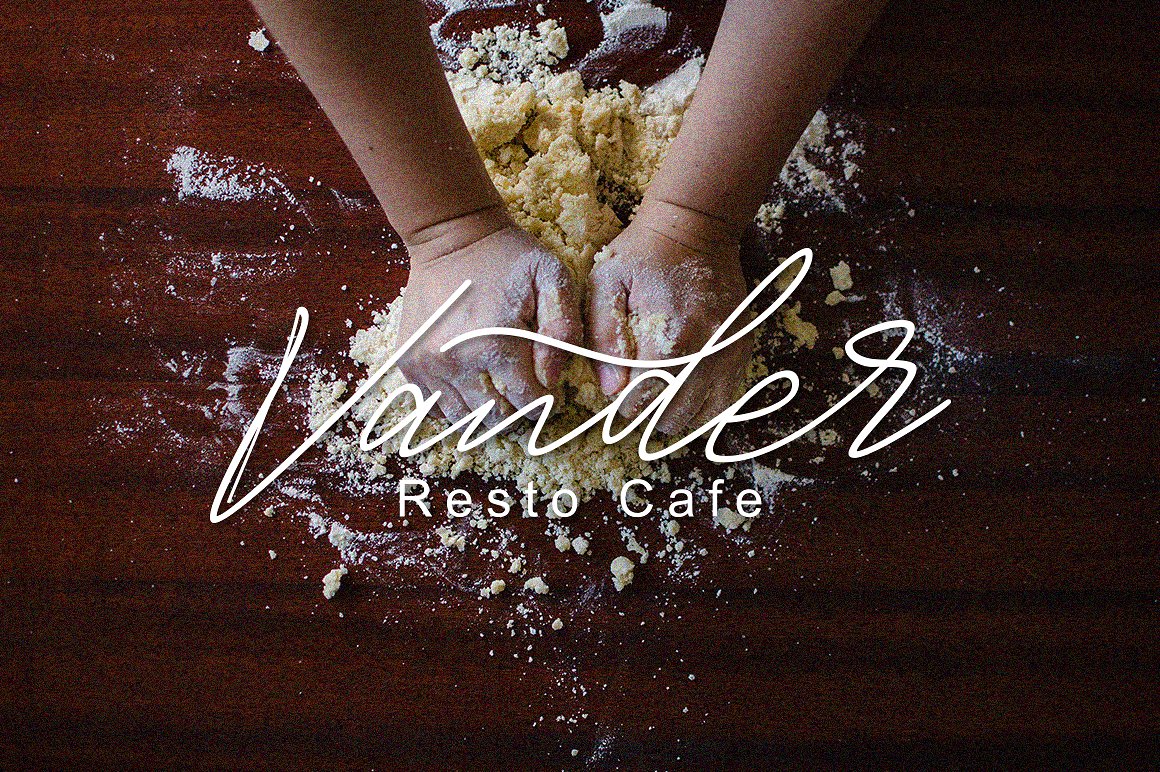
Jackson Handwriting
Jackson Handwriting Font
Jackson Scriptt a new fresh & modern script with a handmade calligraphy style, decorative characters and a dancing baseline! So beautiful on invitation like greeting cards, branding materials, business cards, quotes, posters, and more!!